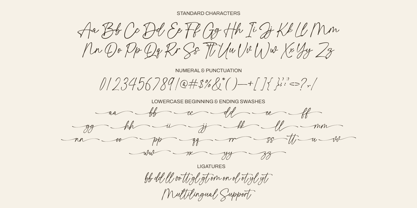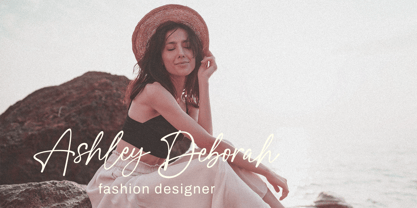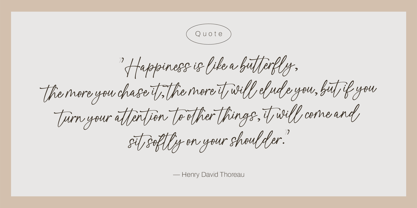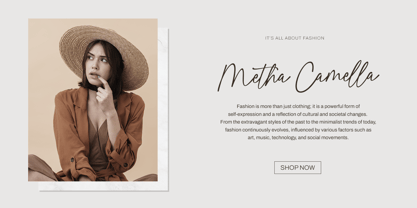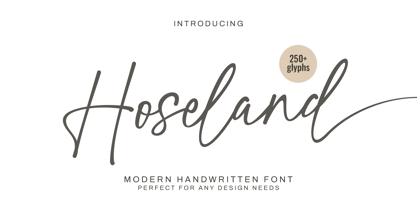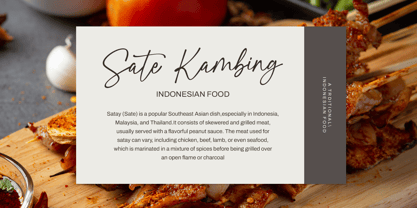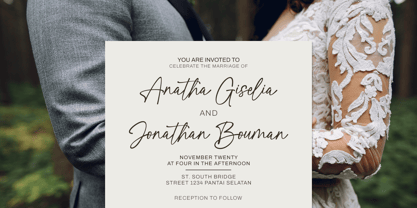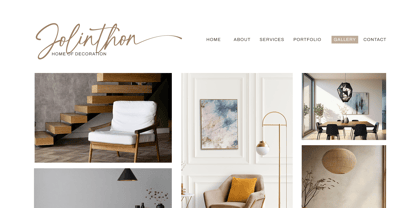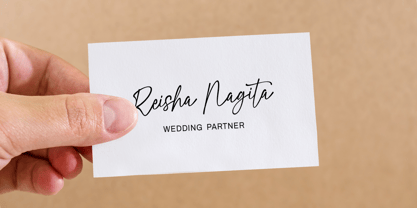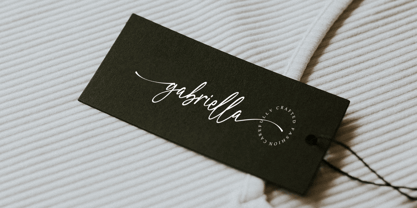
Hoseland
The Hoseland Font Family was designed by Muhammad Mujibulloh and published by MJB Letters. Hoseland contains 1 styles.
oseland is a beautifully crafted handwritten font with a modern and stylish touch. Designed with smooth curves and elegant strokes, this font exudes sophistication while maintaining a natural and personal feel. With over 250+ glyphs, it provides versatility for any design project.
Perfect for:
– Branding & Logo Design
– Wedding Invitations & Stationery
– Social Media & Quotes
– Product Packaging & Labels
– Business Cards & Magazines
– Website & Blog Headers
Features:
– Elegant & Modern Handwritten Style
– 250+ Glyphs for Unique Customization
– Smooth & Natural Flowing Strokes
– PUA Encoded & Multilingual Support
Let Hoseland bring a graceful and personal touch to your next design project!